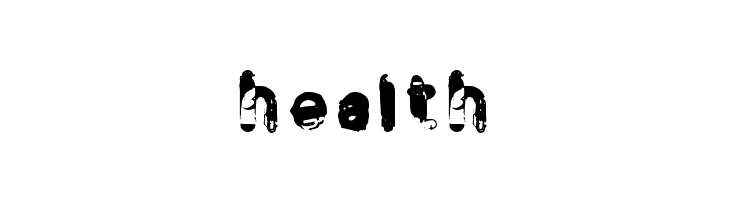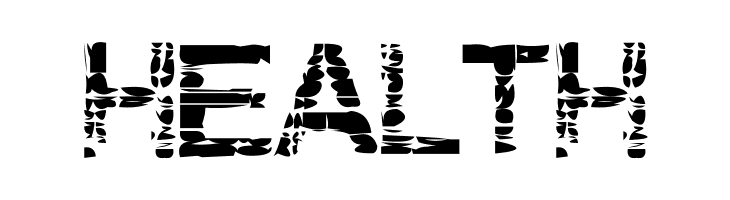
( Fonts by Rodrigo German - RASDESIGN )
A bold, expressive handwritten font with dynamic strokes and unique embellishments.
( Fonts by www.urbanhookupz.com )
A bold, graffiti-inspired font with an urban, edgy style.
( Fonts by www.sweeep.fr - Damien Gosset )
A bold, graffiti-inspired font with a dynamic, hand-drawn style.
( Fonts by Cumberland Fontworks - http://www222.pair.com/sjohn/fonts.htm - S. John Ross )
A cryptic, distressed font with angular shapes and dot accents.
( Fonts by billyargel.blogspot.com - Billy Argel )
A bold, distressed stencil-style font with a rugged, industrial feel.
( Fonts by Rodrigo German - RASDESIGN )
Casual, hand-drawn font with a playful, skate-inspired style.
( Fonts by Christophe Feray - www.wcfonts.com )
A display font made from high-heeled shoe silhouettes.
( Fonts by www.misprintedtype.com )
A bold, distressed font with a grungy, textured appearance.
( Fonts by www.misprintedtype.com )
A bold, distressed font with a grunge, print error effect.
( Fonts by www.misprintedtype.com )
A grungy, distressed font with jagged, irregular strokes and a rebellious vibe.
( Fonts by www.DigitalDreamDesign.net )
Bold, angular font with a modern, urban style.
( Fonts by Ben Nathan )
A bold, rugged font with jagged edges and a grungy, distressed style.
A bold, dynamic font with a graffiti-inspired, energetic style.